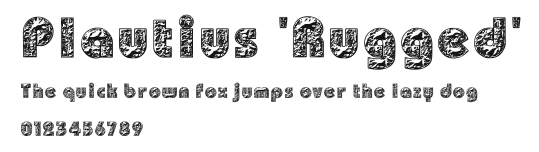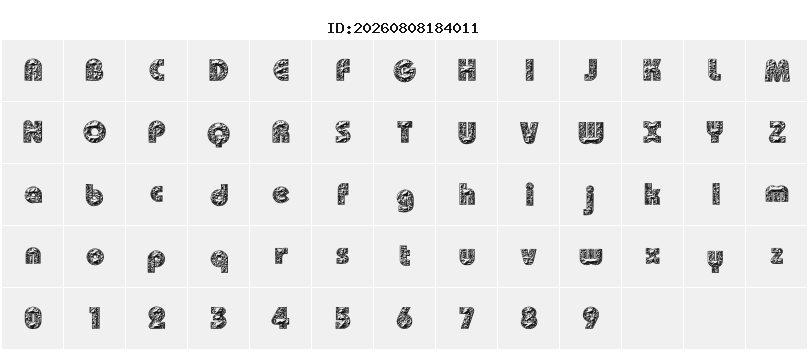
Plautius 'Rugged' Preview
• Font Name: Plautius 'Rugged'
• Full Font Name: Plautius 'Rugged'
About Plautius 'Rugged'.ttf
Plautius 'Rugged'.ttf is a modern, elegant sans-serif font designed for ultimate readability and visual harmony. Perfect for branding, headlines, web design, and print materials.